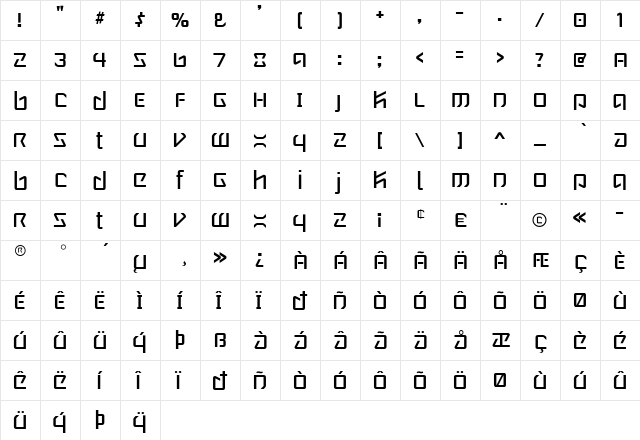
Wintermute Regular
Design Context for Wintermute Typeface
Wintermute is a composed and adaptable typeface that performs quietly and consistently across a wide range of design contexts.